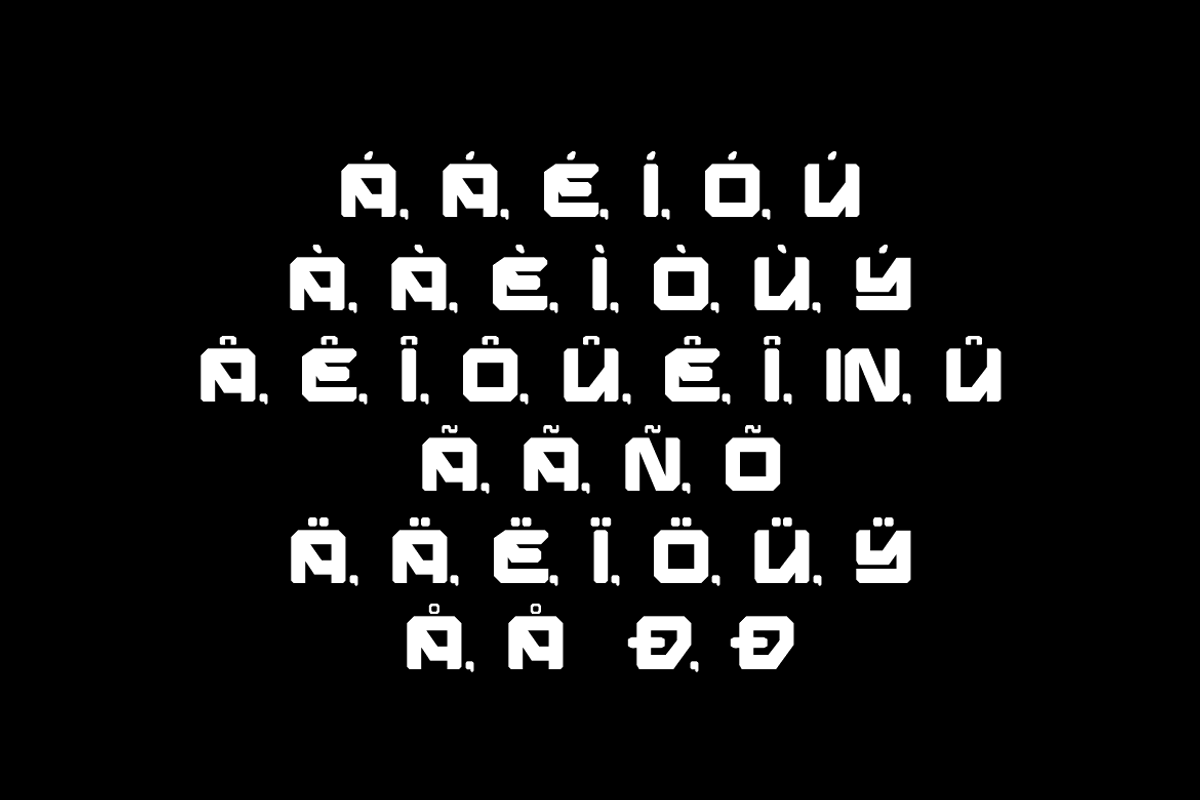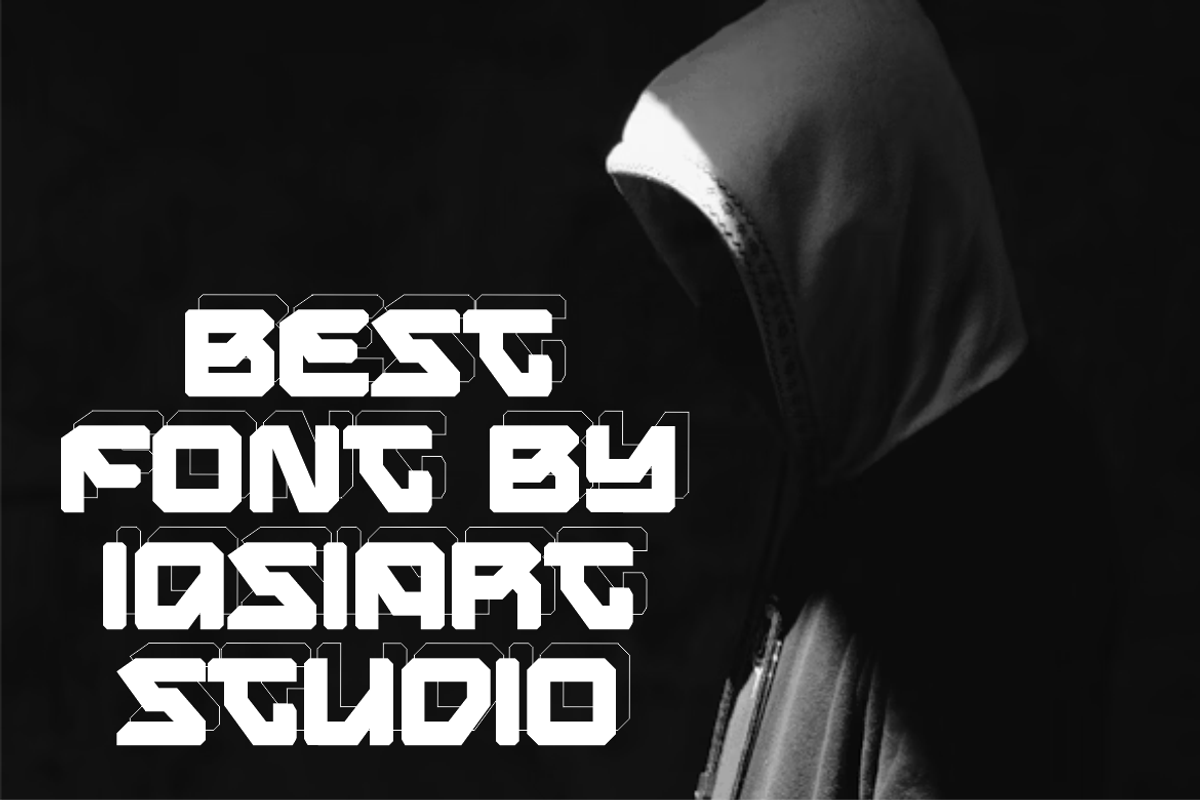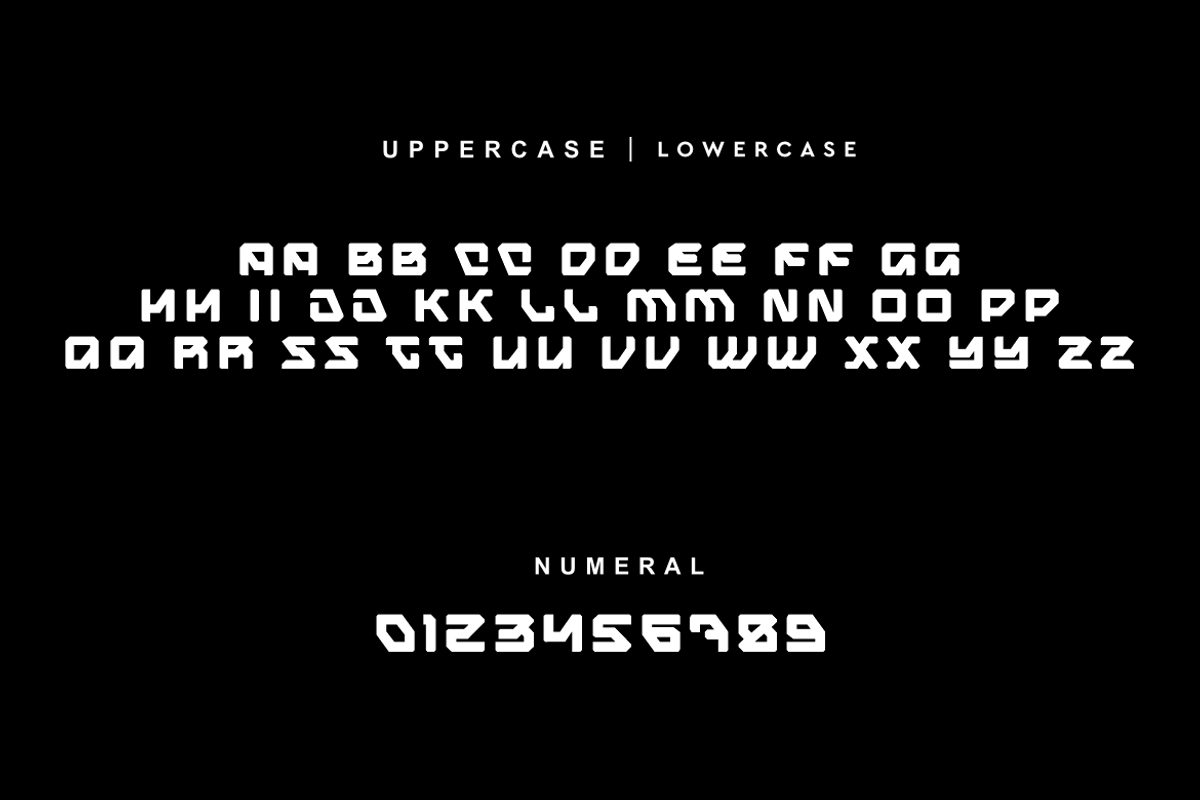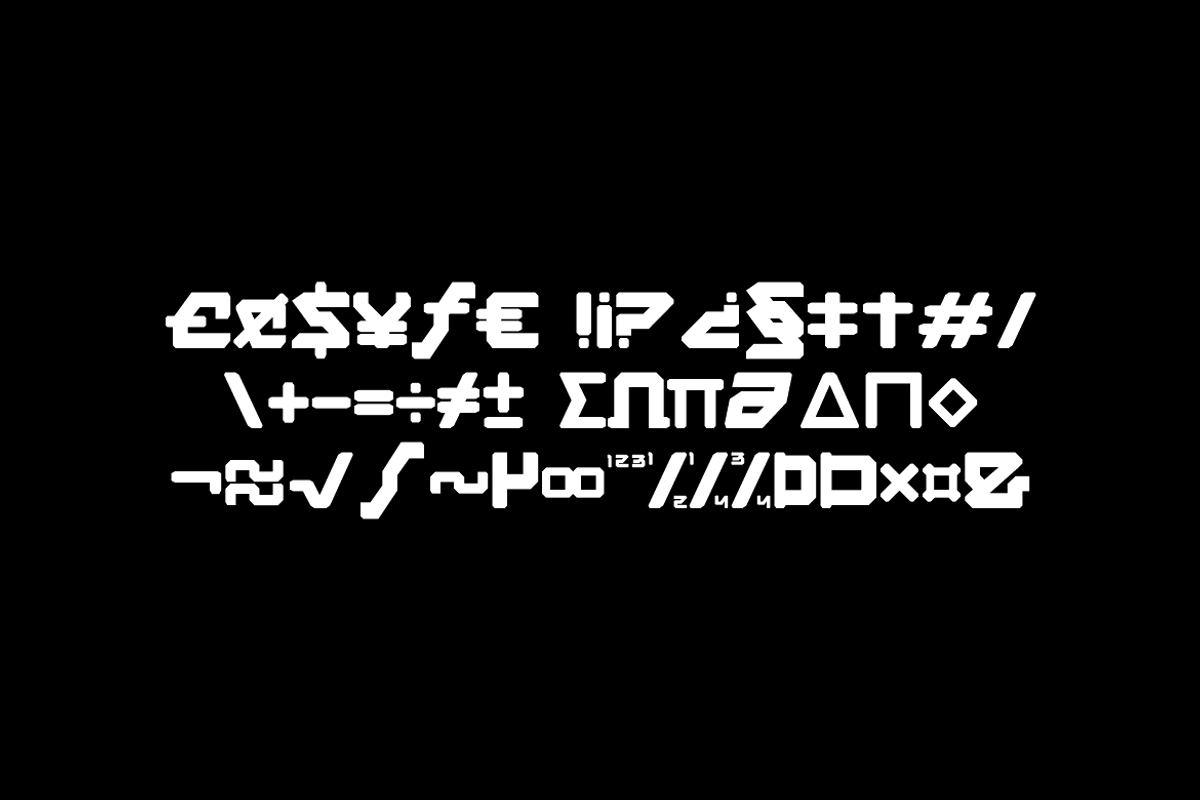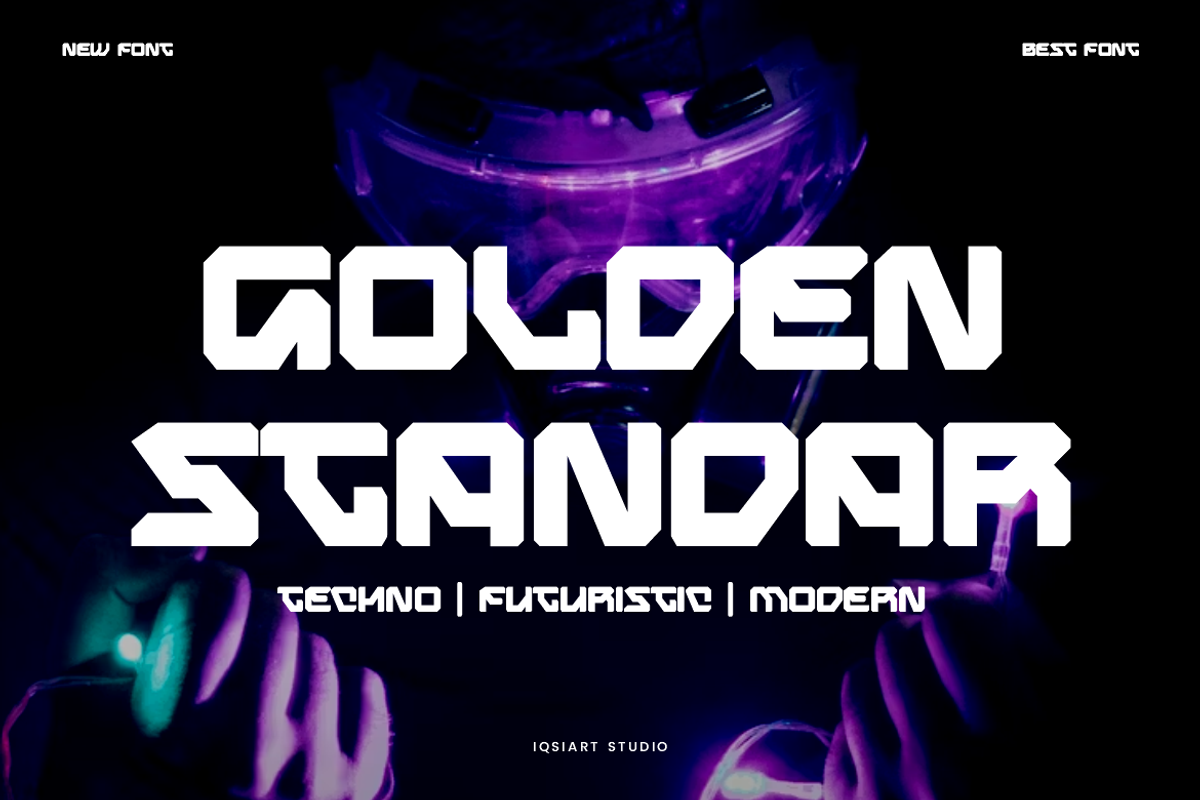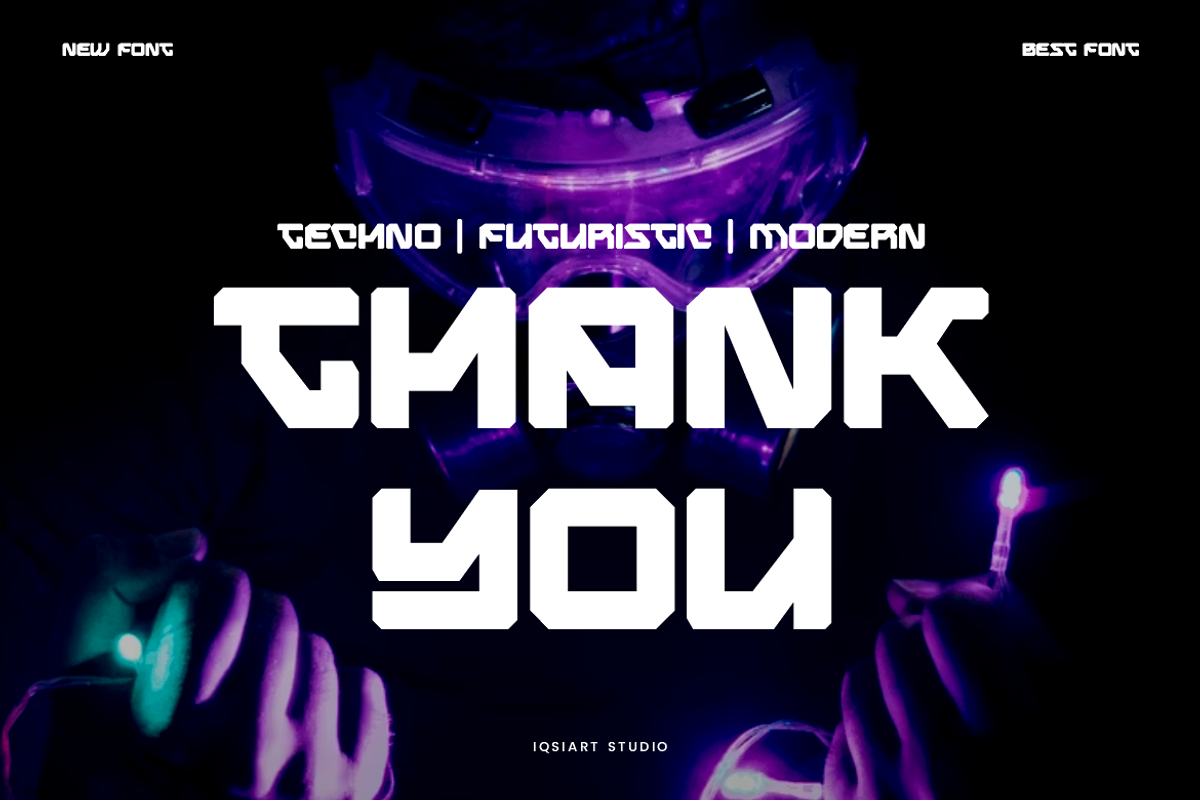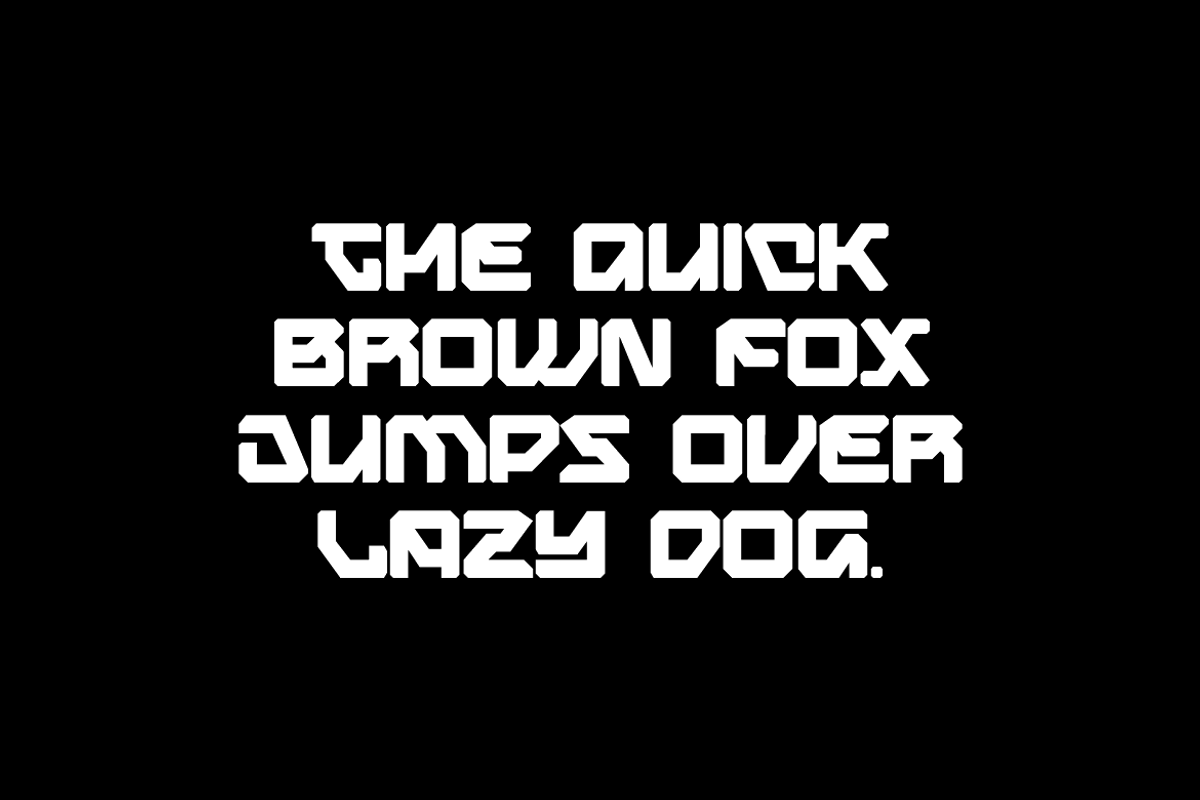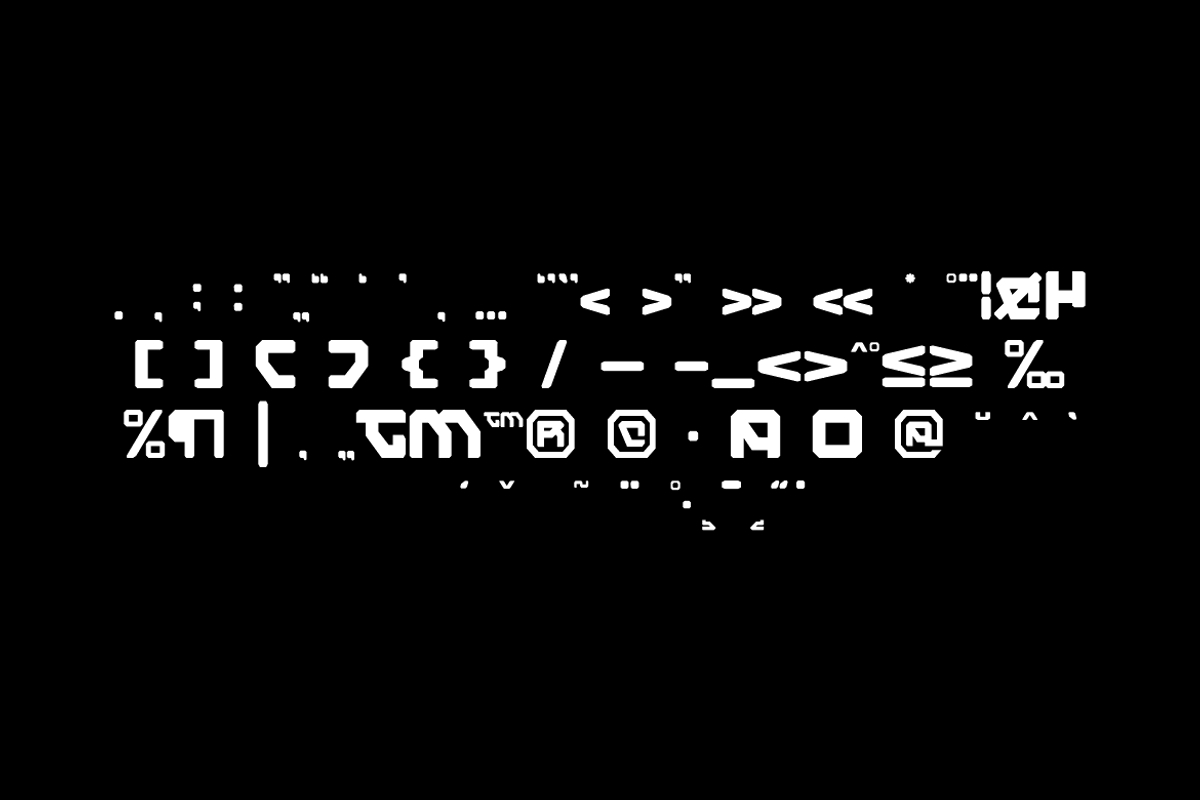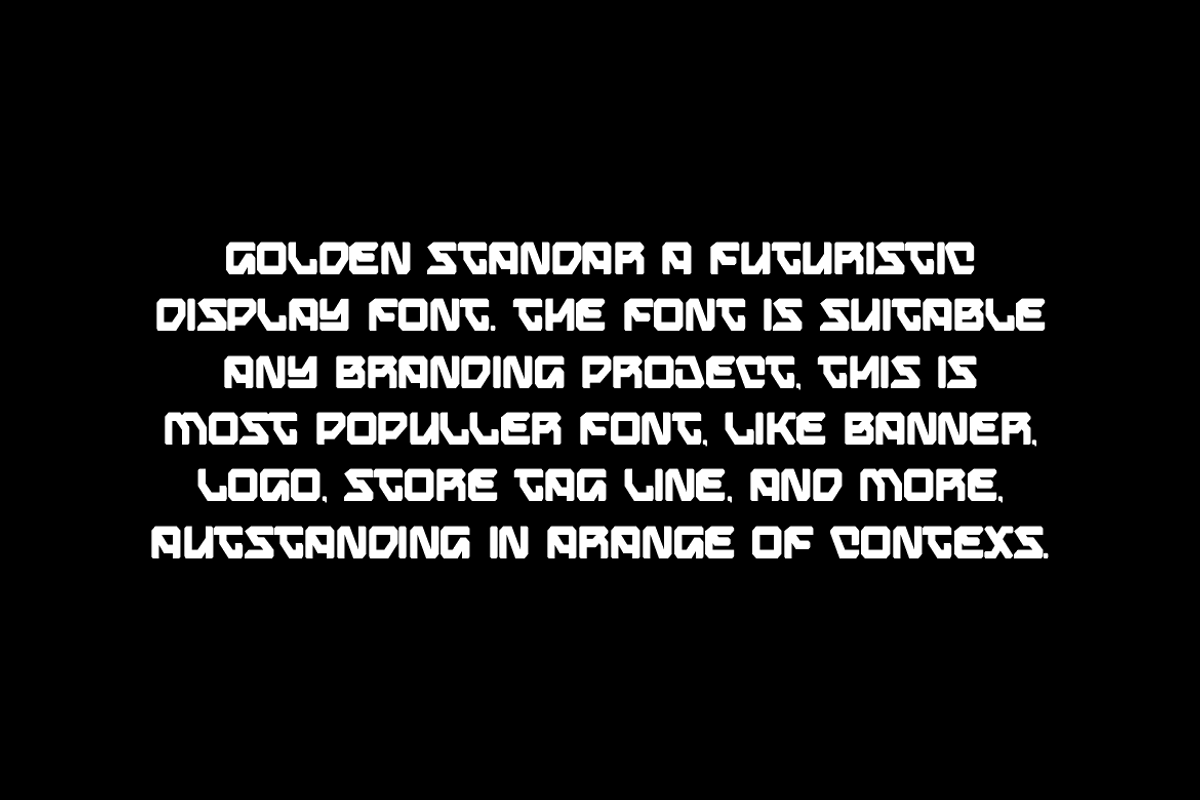
Golden Standar - Futuristic Font
Golden Standar Font is a best and authentic display font. This font can be used for your various needs. We provide various themes and font styles. visit our profile to get a wide variety of themes and different font styles you need.